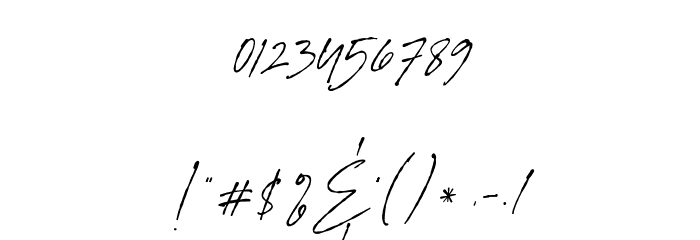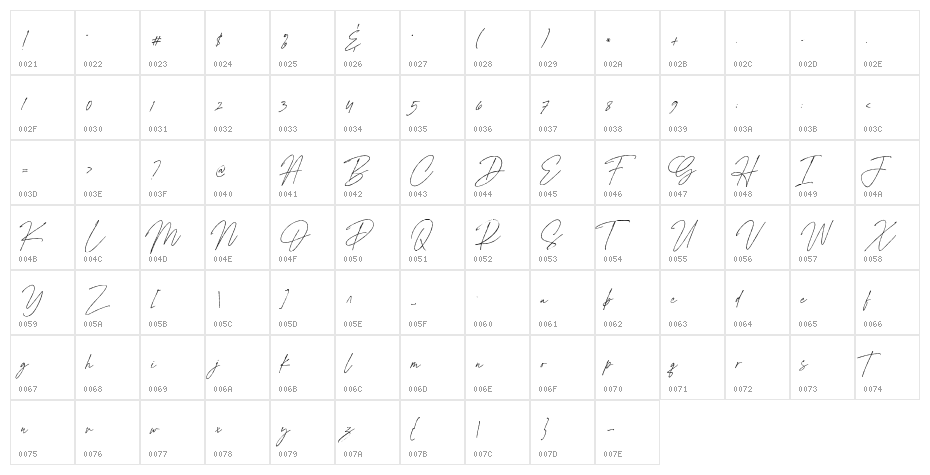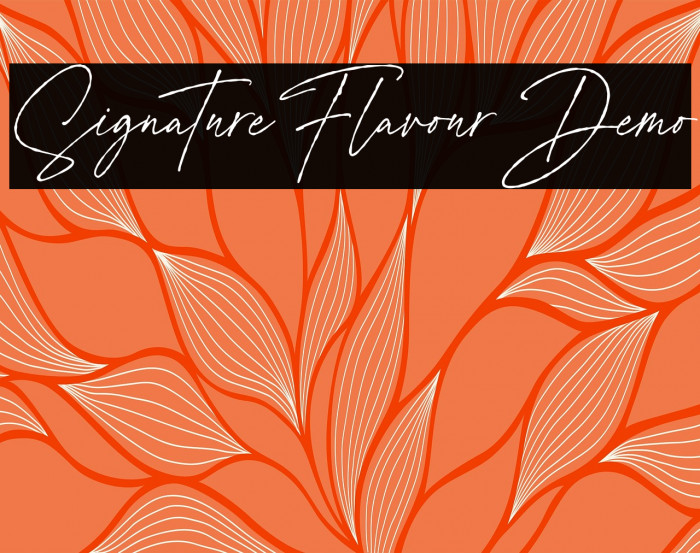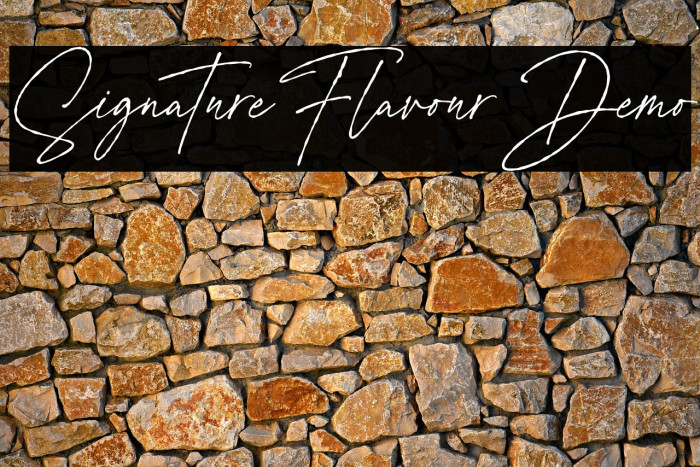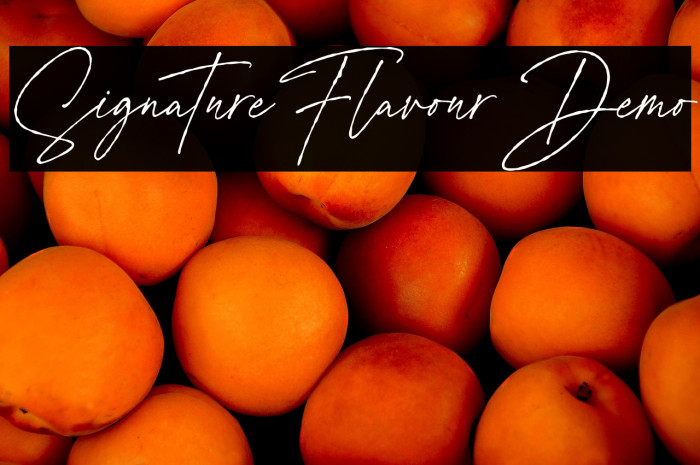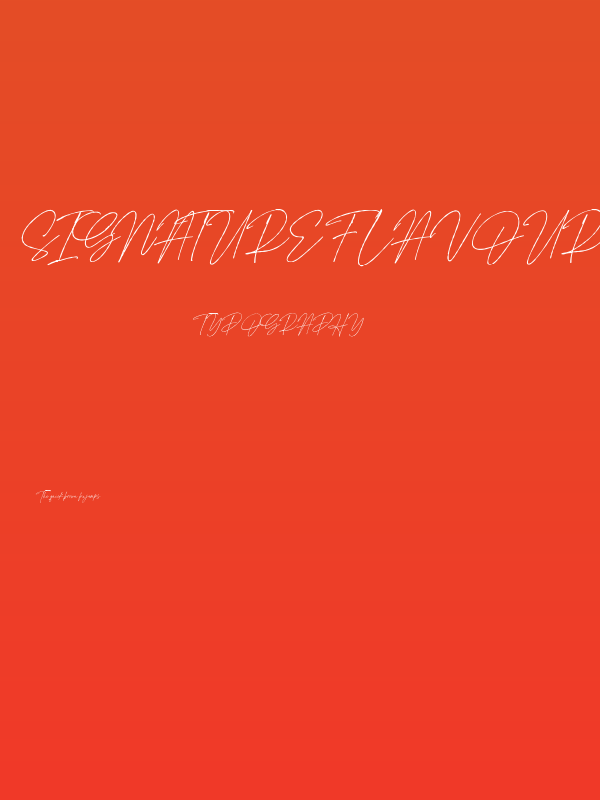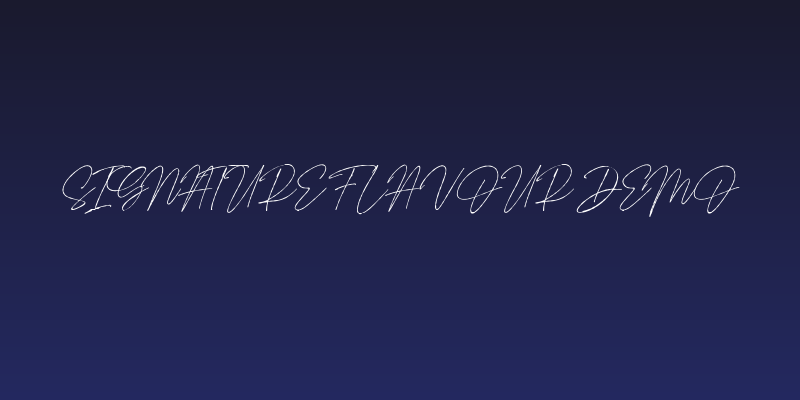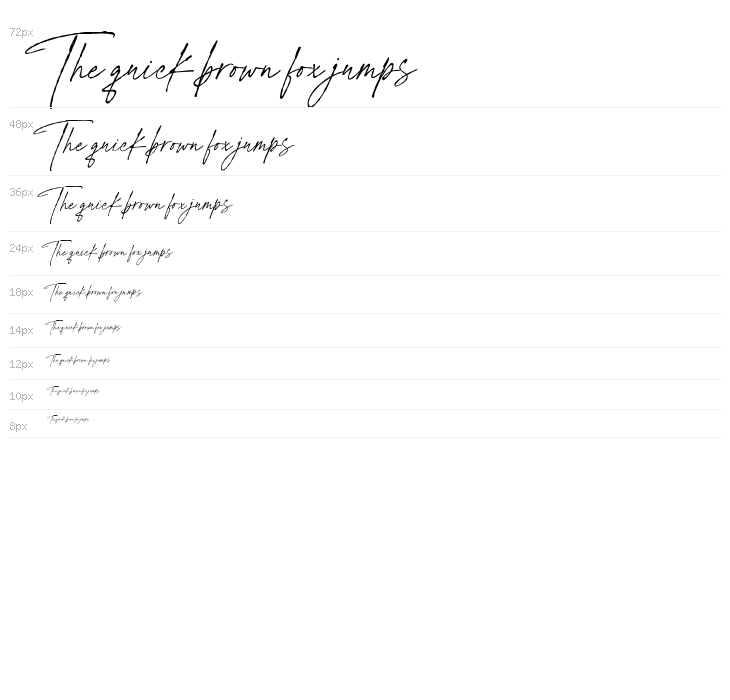
Signature Flavour Demo Font
Signature Flavour Demo Description
This font exudes a sophisticated and elegant handwritten style, characterized by its fluid and cursive letterforms. The strokes are smooth and connected, giving it a natural, flowing appearance reminiscent of a personal signature. The uppercase letters are slightly more structured, while the lowercase letters maintain a consistent, graceful slant. The numerals and special characters are designed to complement the overall aesthetic, maintaining the same fluidity and elegance. This font is perfect for adding a personal touch to any project, making it ideal for invitations, branding, and other creative endeavors.
| Overall Style | Elegant, Sophisticated |
| Proposed Projects | Ideal for wedding invitations, personal branding, logos, and elegant stationery. |